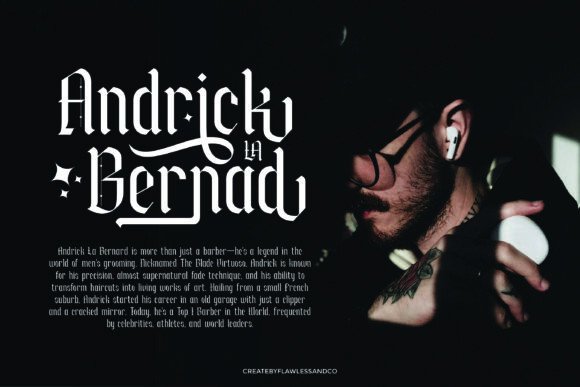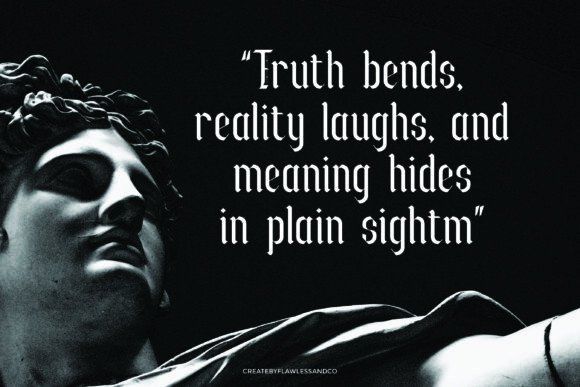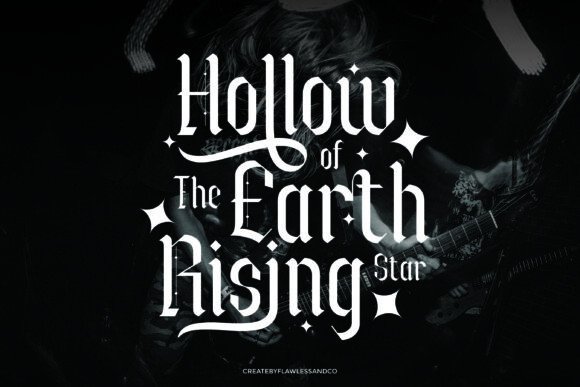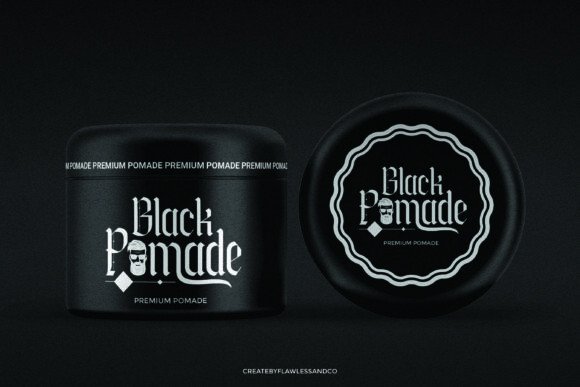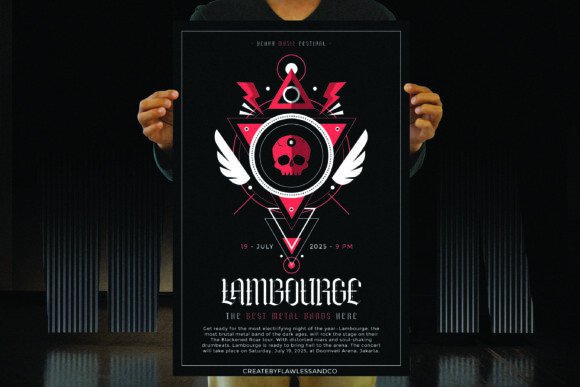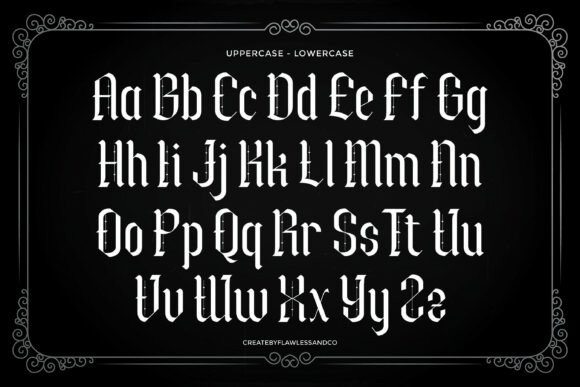
The Power of Blackmist: Unleashing a Bold Blackletter Font
I still remember the design project that led me to discover Blackmist. I was working on a branding campaign for a Gothic-inspired fashion label, and I needed a font that would convey the perfect balance of elegance and edginess. After hours of scouring through font libraries and marketplaces, I stumbled upon Blackmist – a bold and captivating blackletter typeface that instantly caught my attention. Its sharp edges, strong contrasts, and intricate details made it the perfect fit for the project. In this article, I’ll share my experience with Blackmist, its features, and how to make the most of this stunning font.
An Honest Review of Blackmist
What I Love About Blackmist ✨
• 💥 **Impactful presence**: Blackmist demands attention and makes a statement in any design project.
• 🎨 **Versatility**: Suitable for various design applications, from logos and branding to posters, headlines, and packaging.
• 🖌️ **Intricate details**: The font’s Gothic-inspired aesthetic and sharp edges add a level of sophistication and elegance.
• 👍 **Easy to read**: Despite its bold and ornate design, Blackmist remains surprisingly legible.
• ⚠️ **Limited use in body text**: Due to its bold and ornate design, Blackmist may not be the best choice for lengthy paragraphs or body text.
• ⚠️ **Requires careful kerning**: To ensure optimal readability, some manual kerning may be necessary, especially at smaller font sizes.
The Story Behind Blackmist
Blackmist was designed by a renowned type foundry with a passion for creating unique and captivating fonts. Inspired by traditional Gothic architecture and calligraphy, the design team aimed to craft a bold and elegant blackletter font that would make a statement in any design project. Through careful attention to detail and a deep understanding of typography, Blackmist was born – a font that combines power, elegance, and versatility.
What is Blackmist suitable for? Blackmist is perfect for creating impactful visual designs, such as logos, branding, posters, headlines, apparel, album covers, packaging, merchandise, tattoos, book titles, invitations, signage, and statement designs.
Is Blackmist easy to read? Despite its bold and ornate design, Blackmist remains surprisingly legible, making it suitable for titles, headings, and short paragraphs.
Does Blackmist support OpenType features? Yes, Blackmist supports OpenType features, including stylistic alternates, glyphs, and ligatures, allowing you to customize and enhance your typography.